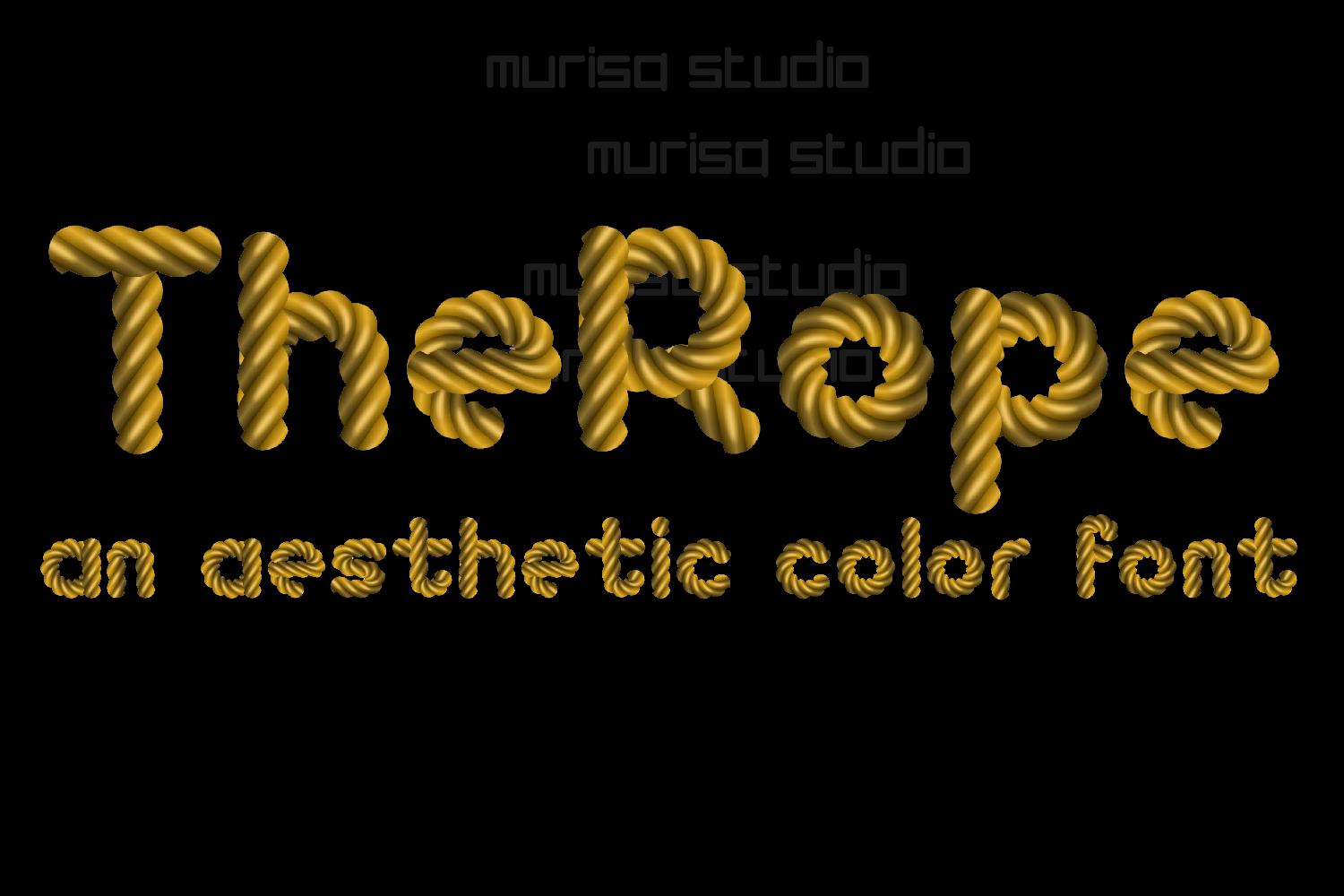
The Rope Font Description
The Rope is one of the most interesting fonts to own. Its beautiful shape and attractive color will be able to make everyone interested in the product that uses it. The Rope is well-crafted, so even when combined with other fonts, it’s still attractive.